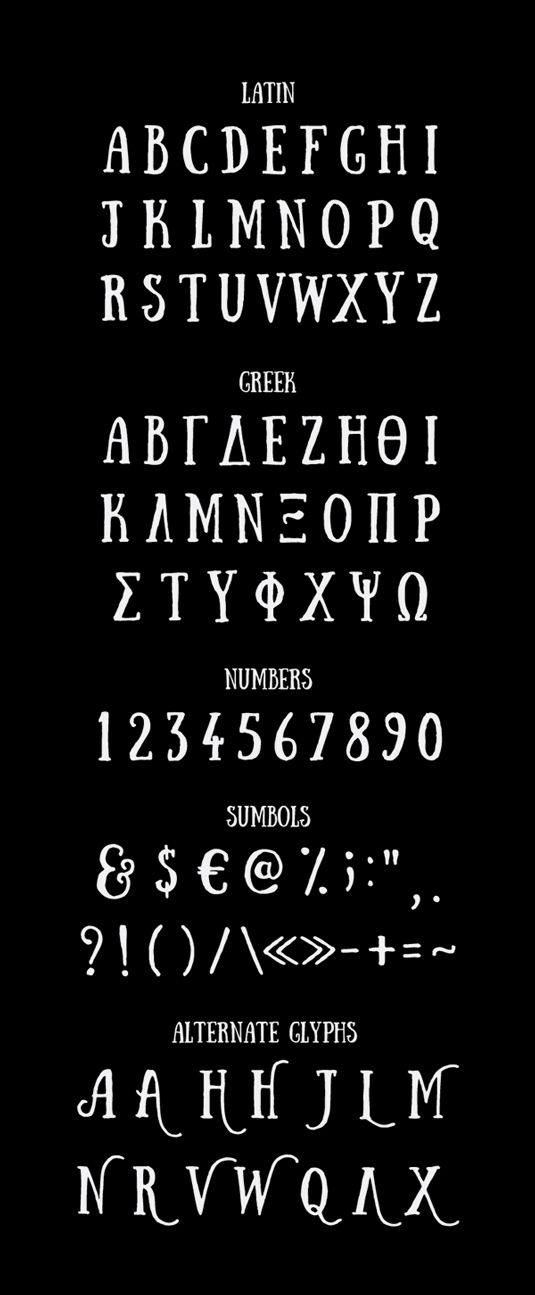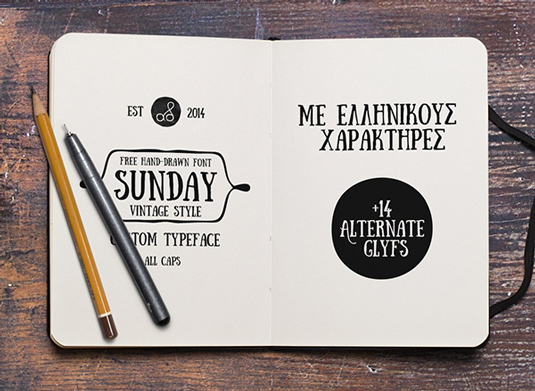
Font of the day: Sunday
Sunday by Anastasia Dimitriadi
Today's typeface of choice, Sunday, is the first hand-drawn design by illustration and letter artist Anastasia Dimitriadi. After studying typography and discovering vintage and old school hand lettering, Dimitriadi got to work on her own custom typeface and Sunday was the result of her practise.